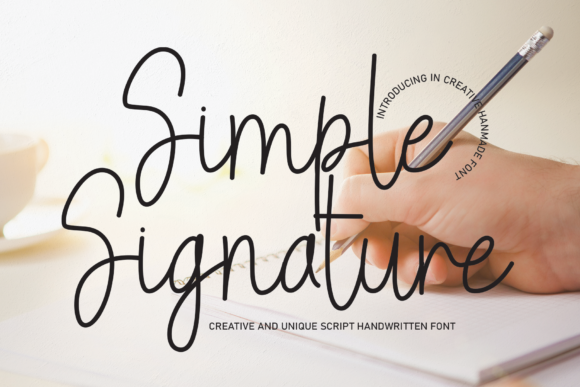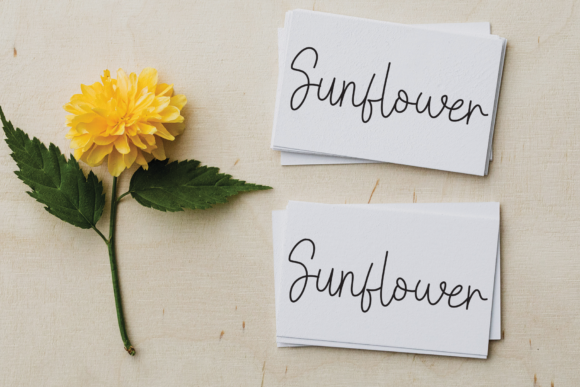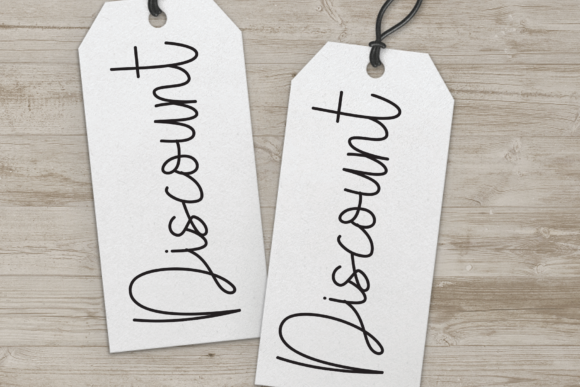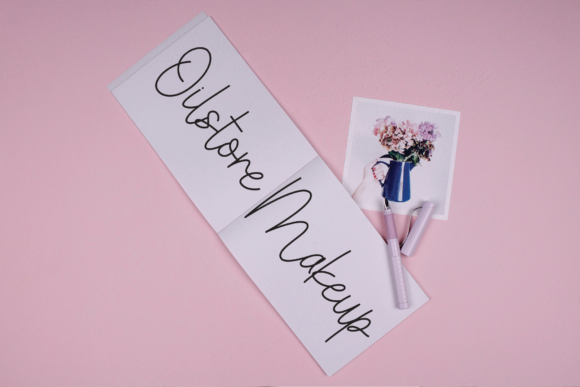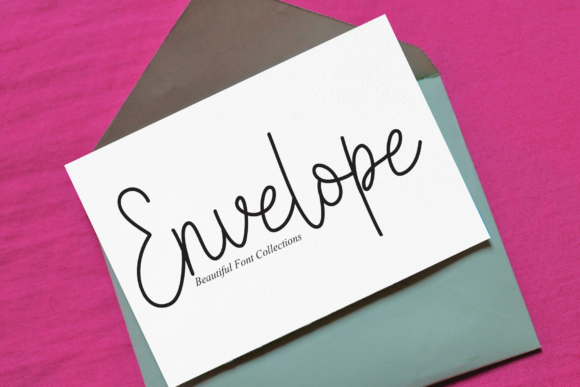
Simple Signature Font
About Simple Signature Font
Simple Signature is a sweet handwritten font that was crafted with great care to produce the expected results. It will look stunning on any poster, flyer or print.